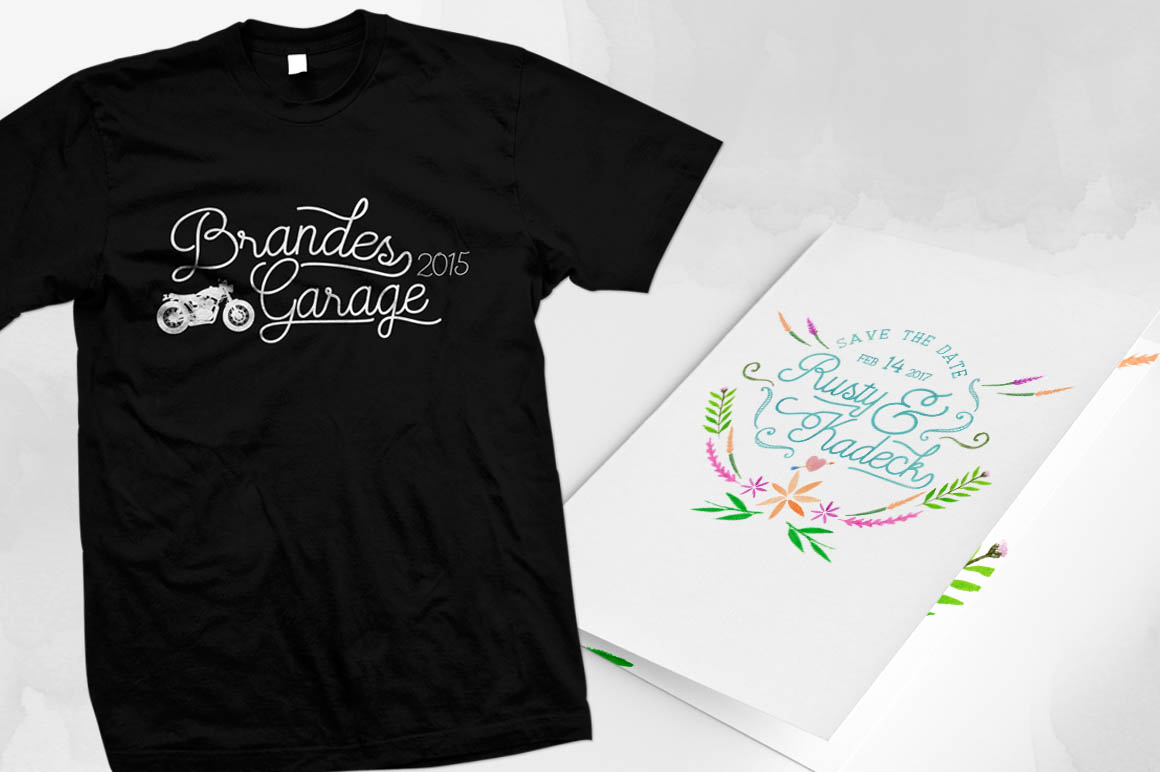
Mooglonk – Free Script Font
This clean and modern sans serif font family is from AlitDesign. Great for your new creative projects. Download and enjoy 😉